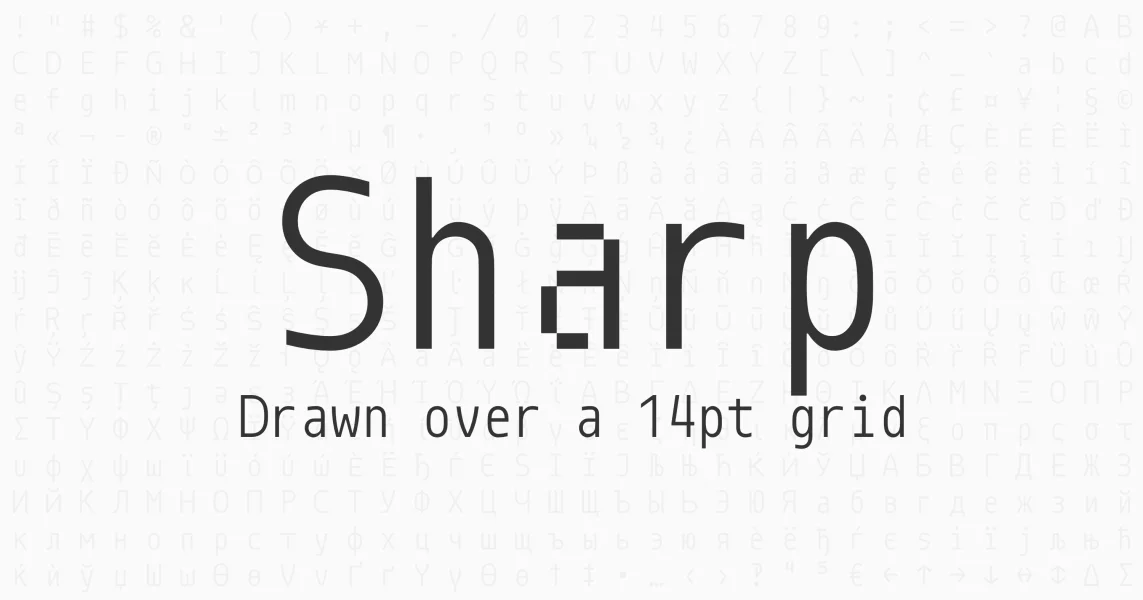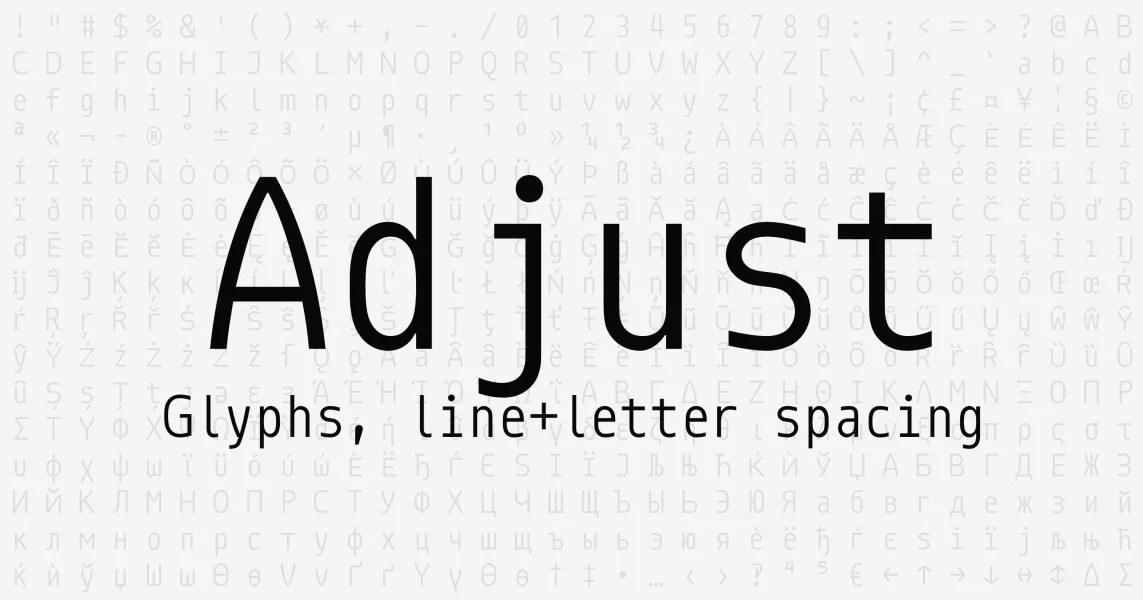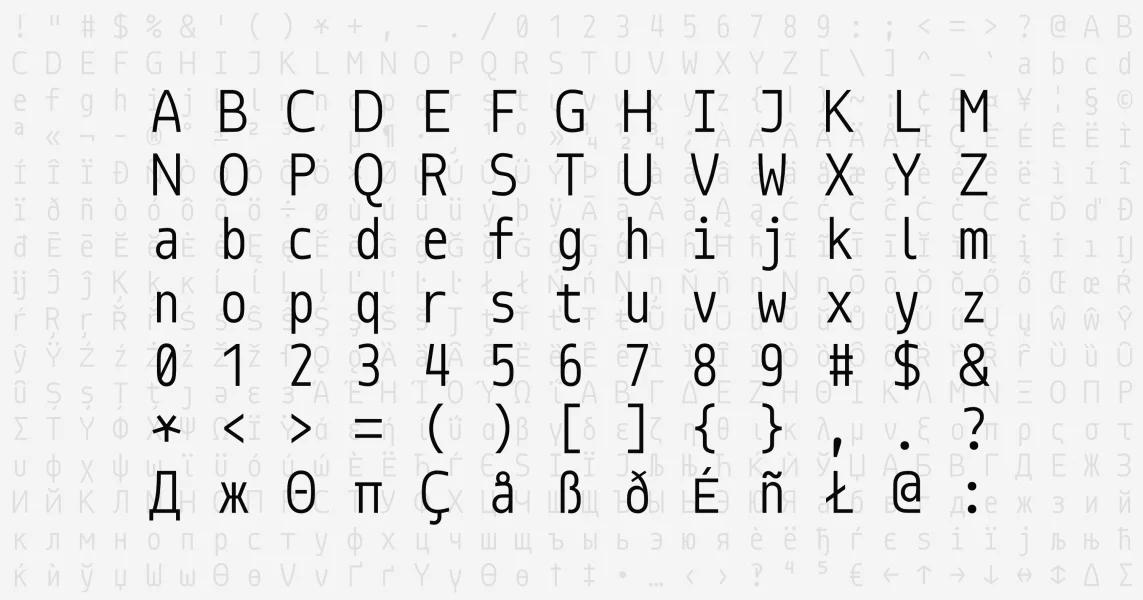
Monoid is a customizable font optimized for coding with bitmap-like sharpness at 14px even on low res displays. >600 semi-condensed and distinguishable glyphs with big apertures, bold punctuation, big operators and more. Available with alternative spacing and line heights on it's own website.